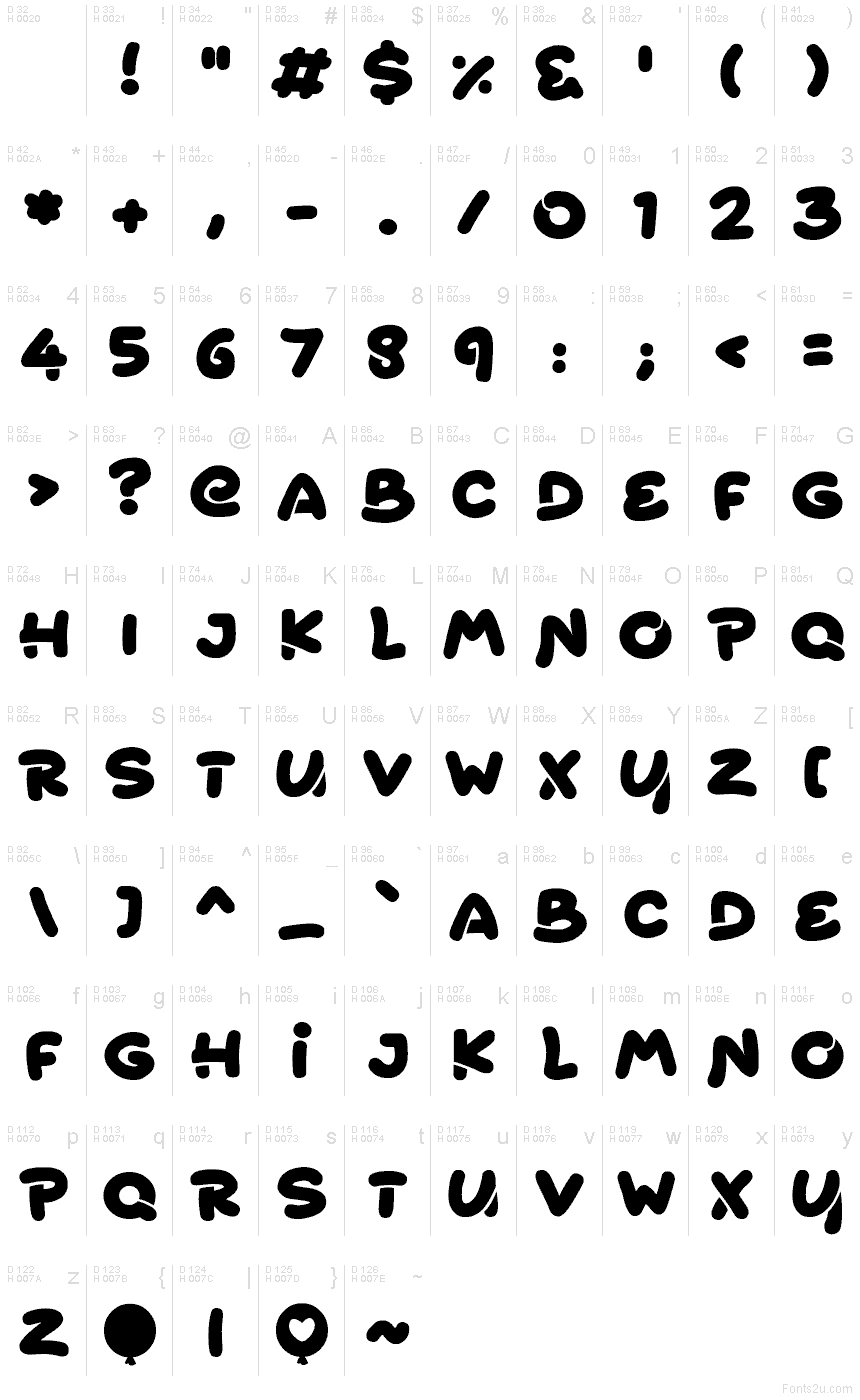
Bouncy Balloons
Bouncy Balloons font by Hawtpixel is a free cartoon display font. Plump, glossy letterforms look air-filled and a little wobbly, giving headlines a cheerful bounce without turning messy. The rounded shapes and even weight create a friendly rhythm that reads quickly at a glance—great when you need big, happy energy that still feels legible.
Using Bouncy Balloons, kids’ birthday invites, party banners, classroom posters, toy packaging, and family YouTube thumbnails all pop with playful charm. This free font shines on event signage and bake-sale boards too, where its chunky forms grab attention from across the room. Pair with a clean geometric sans for body copy, and set headlines large with slightly loose tracking to let those bubbly curves breathe.